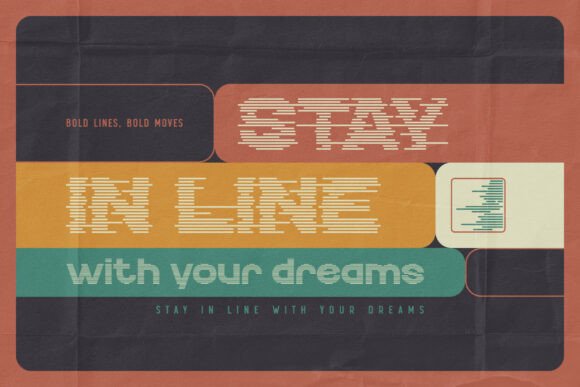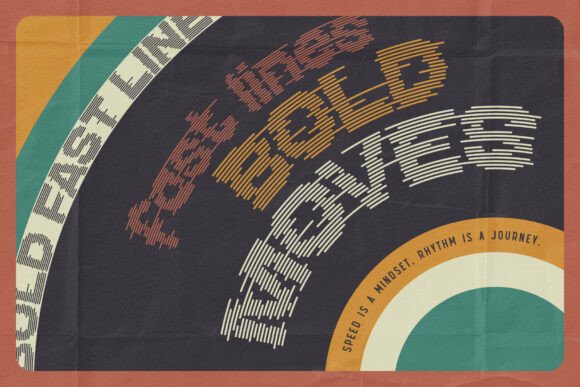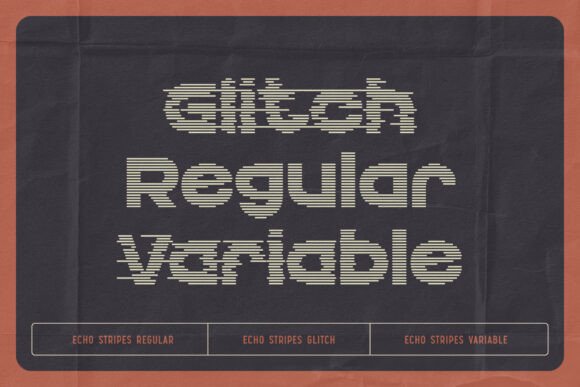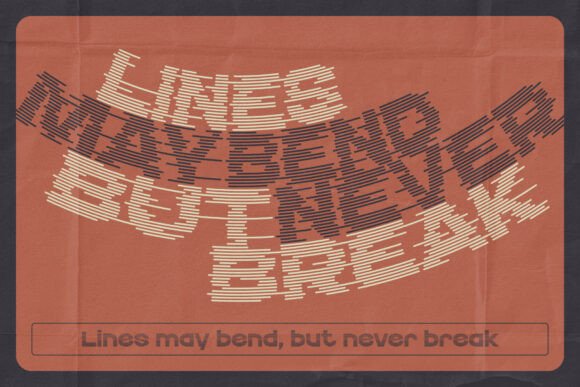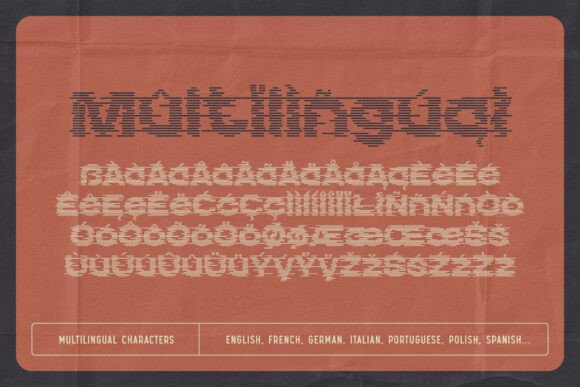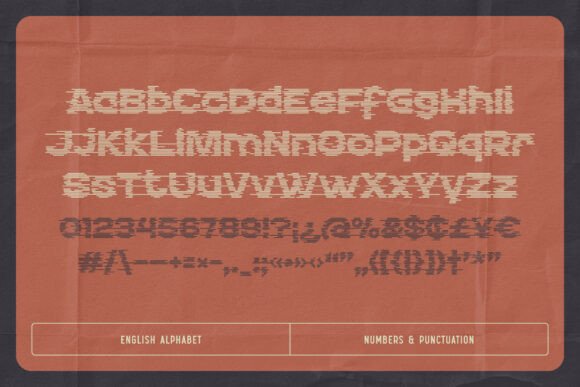
Introducing Echo Stripes Font: A Grotesque Sans-Serif Typeface with a Glitch Effect
In the world of typography, a new font has emerged that is sure to capture the attention of designers and crafters alike. Say hello to Echo Stripes, an original font set that is crafted from horizontal lines with a glitch effect. This grotesque sans-serif typeface is not only visually striking but also highly versatile, making it perfect for a wide range of design projects.
The Unique Features of Echo Stripes
So, what sets Echo Stripes apart from other fonts? For starters, its unique glitch effect gives it a distinctive look that is sure to make your designs stand out. But that’s not all – this font also features a variable type feature, which allows you to adjust the intensity of the distortion from none to maximum. This means that you can use Echo Stripes to create a wide range of effects, from subtle and sophisticated to bold and eye-catching.
The Echo Stripes Font Family
The Echo Stripes font family includes three typefaces: Regular, Glitch, and Variable. The Regular typeface provides a clean and classic look, while the Glitch typeface adds a touch of distortion and visual interest. The Variable typeface takes it to the next level, allowing you to adjust the level of distortion to suit your design needs.
Multilingual Support
Another great feature of Echo Stripes is its multilingual support. This font includes a wide range of characters, making it perfect for designers who work with international clients or want to create designs that cater to a global audience. You can see the available characters in the screenshot provided.
Echo Stripes is a font that is sure to appeal to designers and crafters who are looking for a unique and versatile typeface. Whether you’re working on a branding project, creating a website, or designing a craft project, Echo Stripes has the potential to elevate your design and make it stand out.
Key Features of Echo Stripes
- Grotesque sans-serif typeface crafted from horizontal lines with a glitch effect
- Variable type feature allows for adjustable distortion intensity
- Font family includes three typefaces: Regular, Glitch, and Variable
- Multilingual support with a wide range of characters
- Perfect for designers and crafters looking for a unique and versatile typeface
Tips for Using Echo Stripes
So, how can you get the most out of Echo Stripes? Here are a few tips:
- Experiment with different levels of distortion to find the perfect effect for your design
- Use the Regular typeface for a clean and classic look
- Use the Glitch typeface to add a touch of visual interest
- Use the Variable typeface to create a truly unique effect
| Font Name | Echo Stripes Font |
| Author | Gleb Guralnyk |
In conclusion, Echo Stripes is a font that is sure to capture the attention of designers and crafters alike. Its unique glitch effect, variable type feature, and multilingual support make it a versatile and highly usable typeface. Whether you’re working on a branding project, creating a website, or designing a craft project, Echo Stripes has the potential to elevate your design and make it stand out.